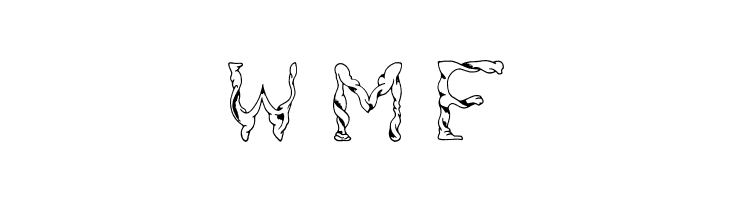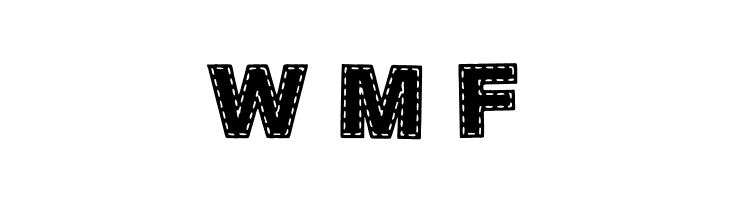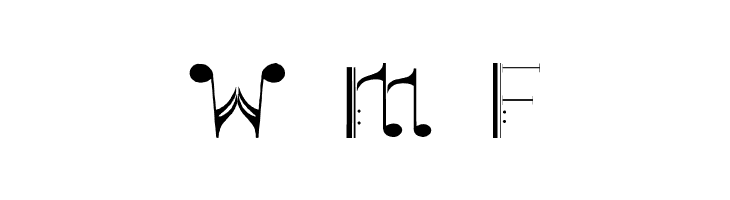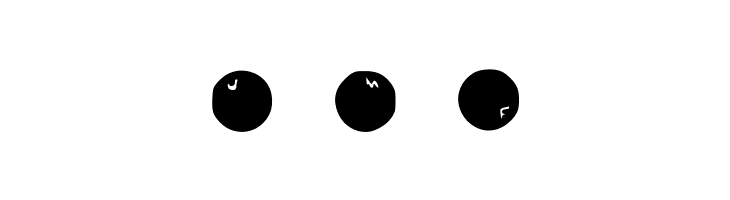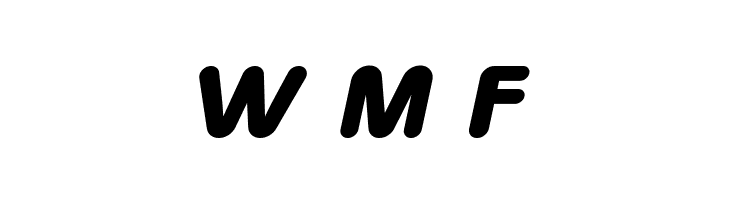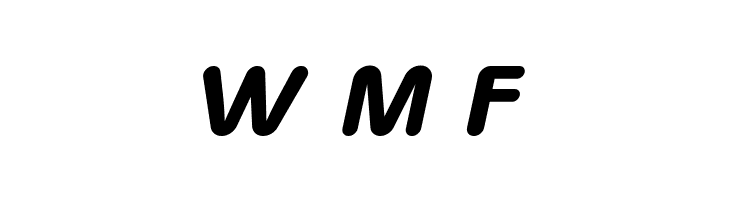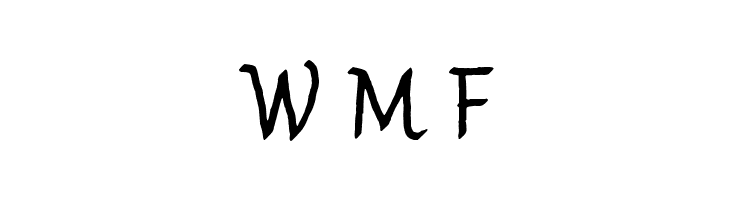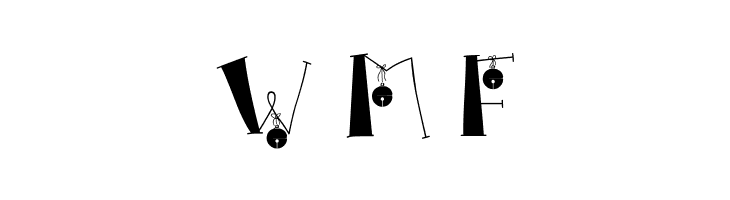
A bold, rounded, and italic font with a friendly and dynamic style.
A modern, rounded italic font with a friendly and approachable style.
A whimsical font featuring playful animal illustrations for each character.
( Fonts by Alistair Quietsch )
A decorative font with sinewy, intertwined strands creating a dynamic and fluid appearance.
( CROLrene )
A playful, decorative font with festive ornament-like elements.
A hand-drawn, playful font with varying stroke widths and a dynamic appearance.